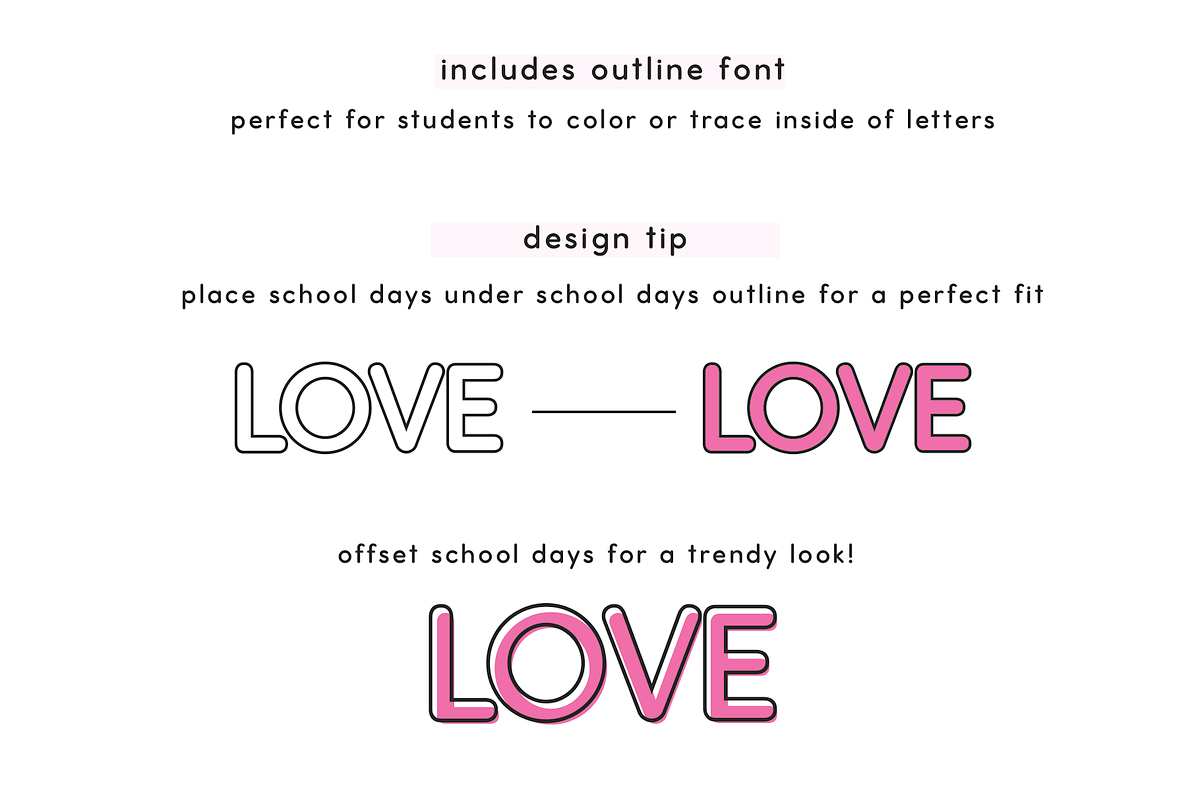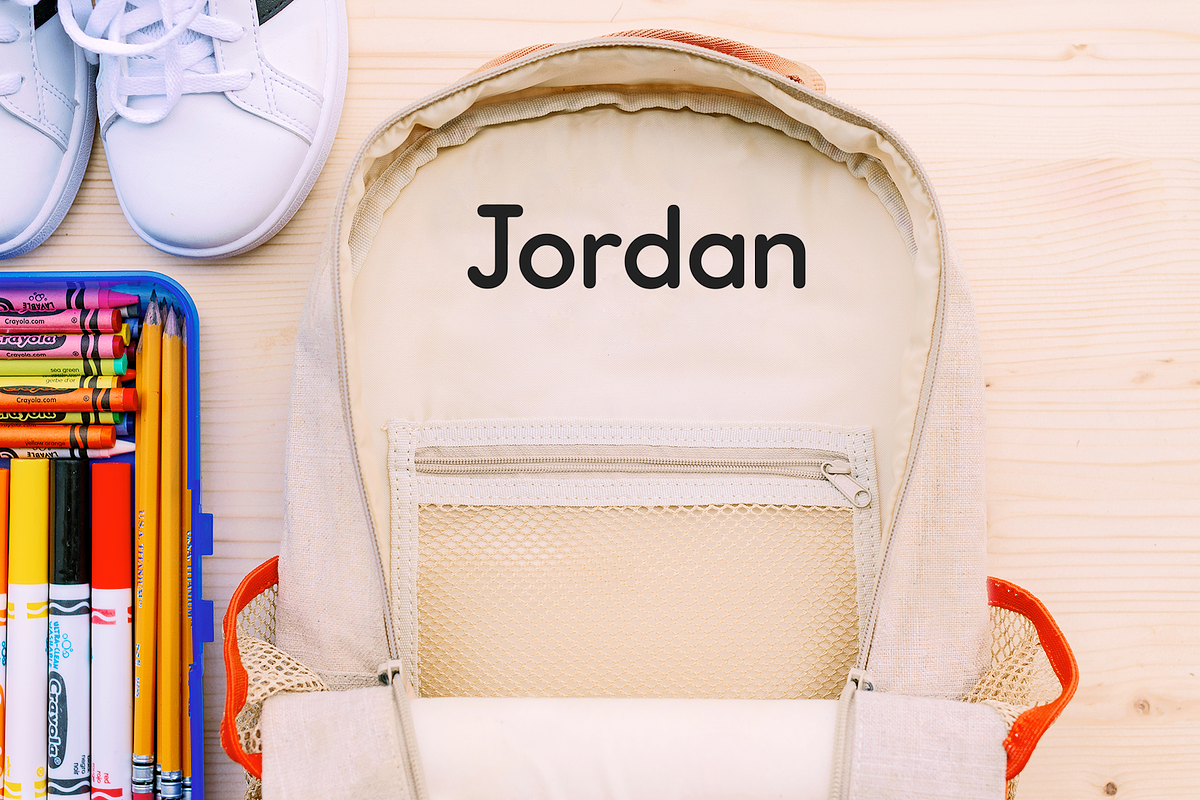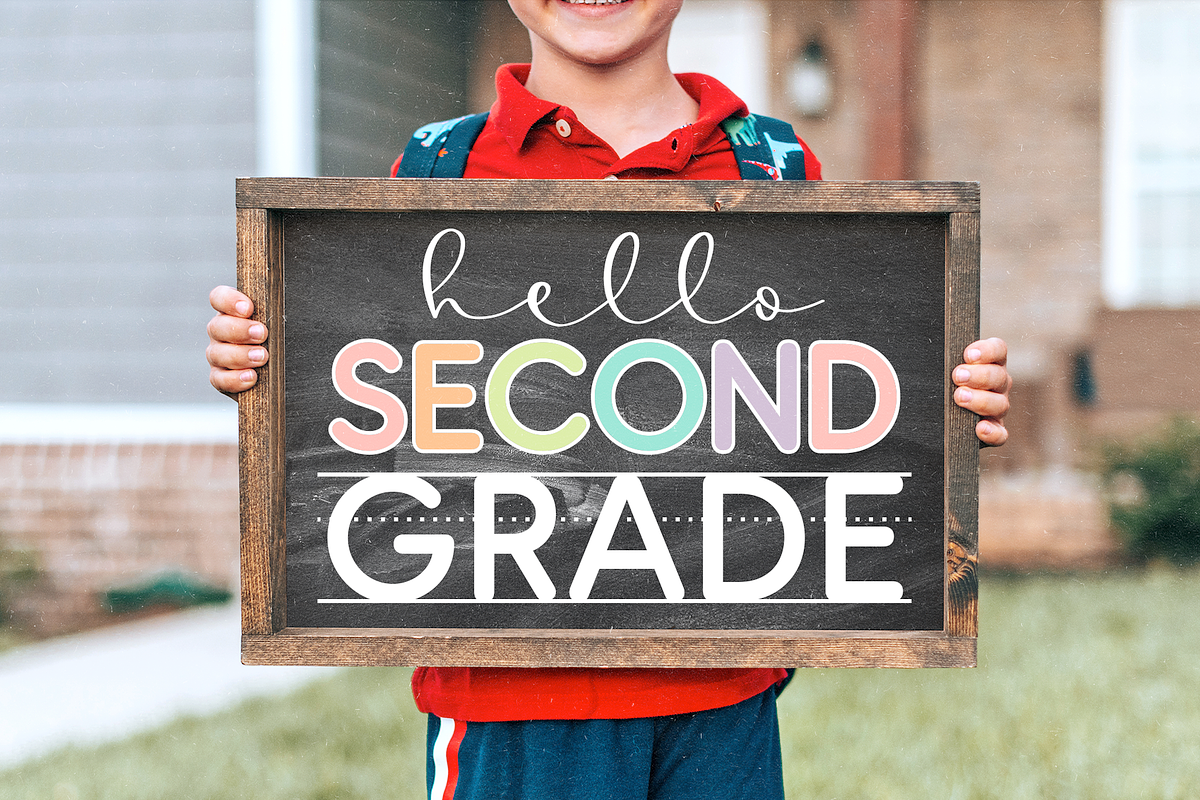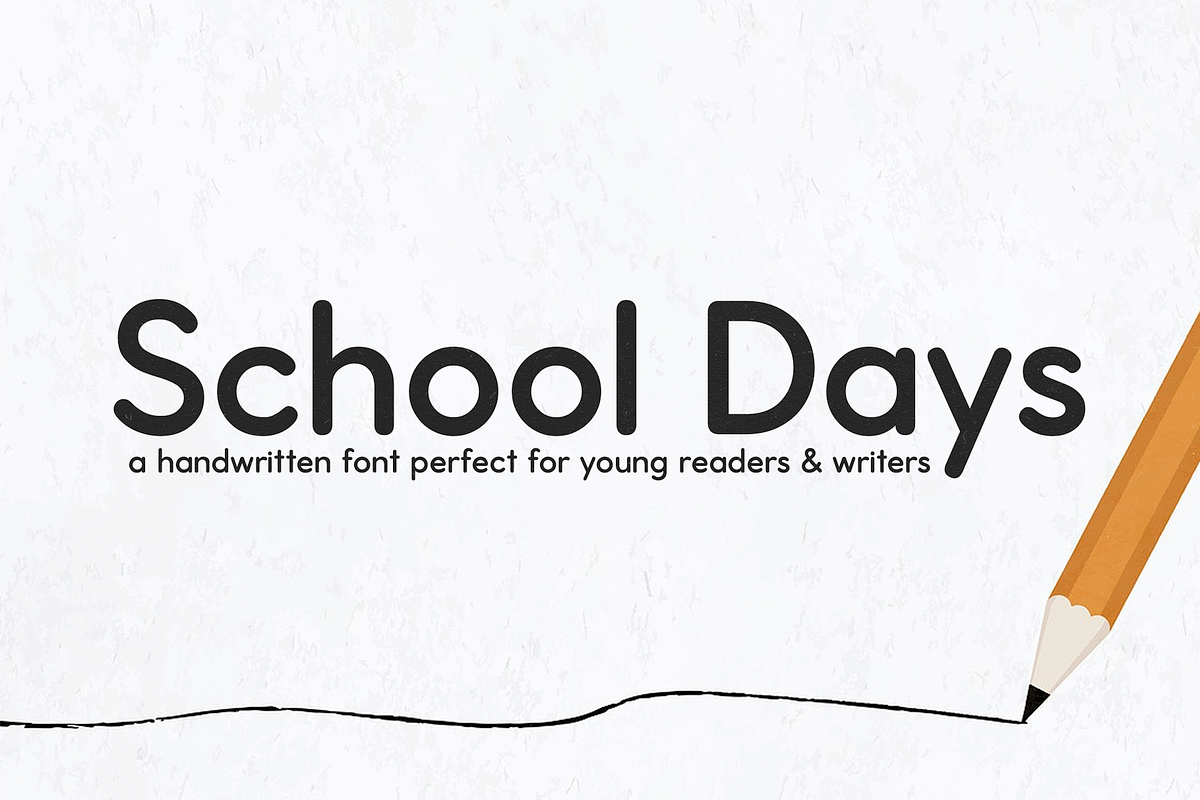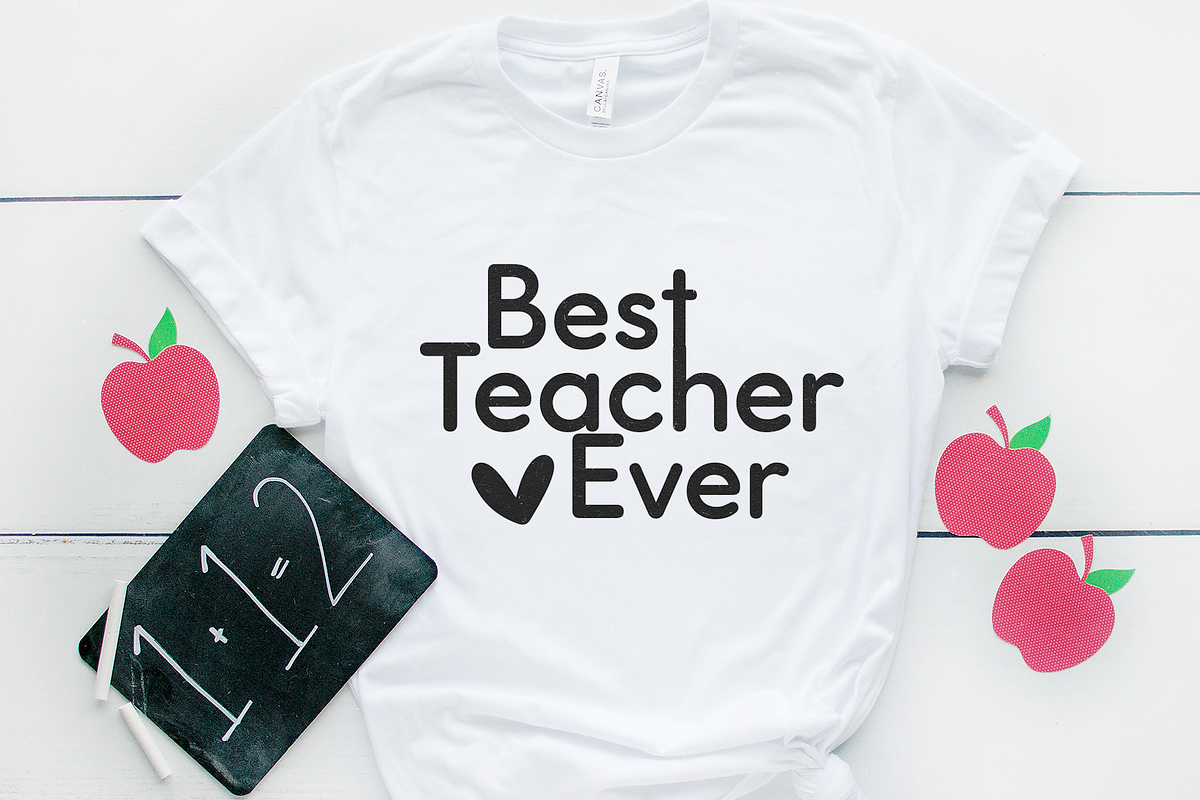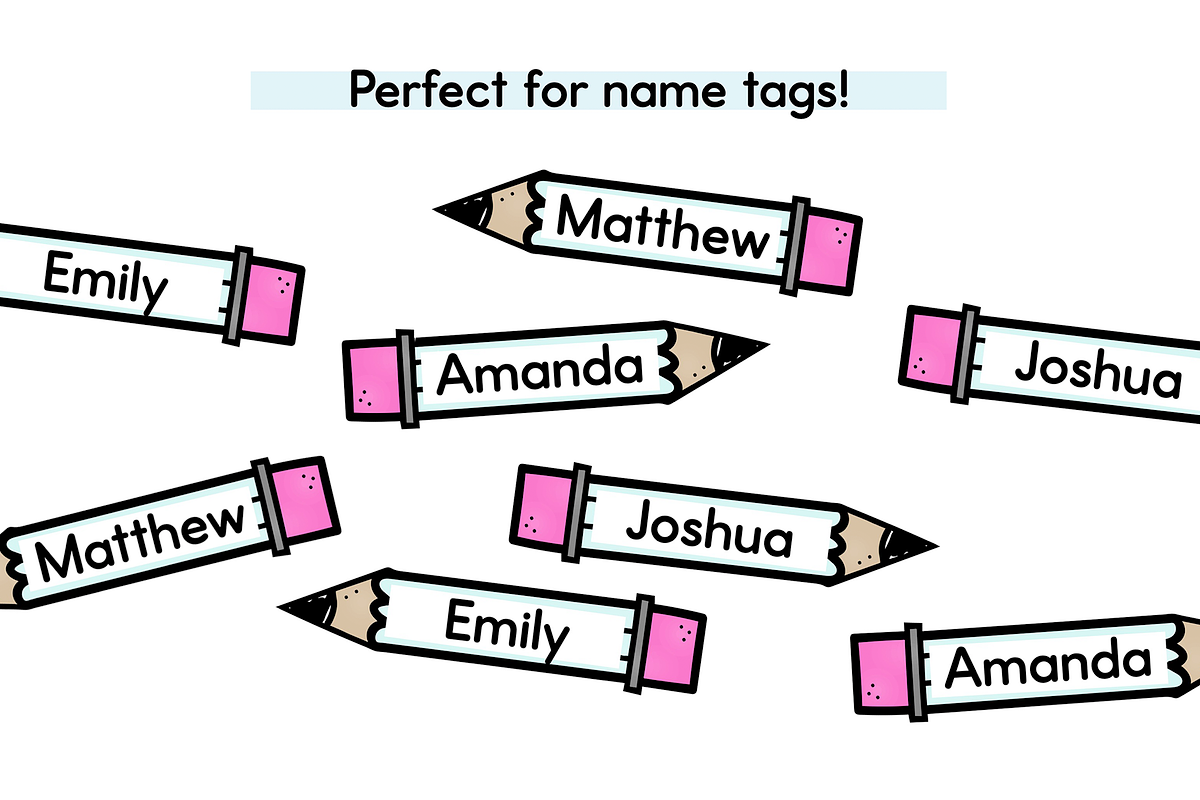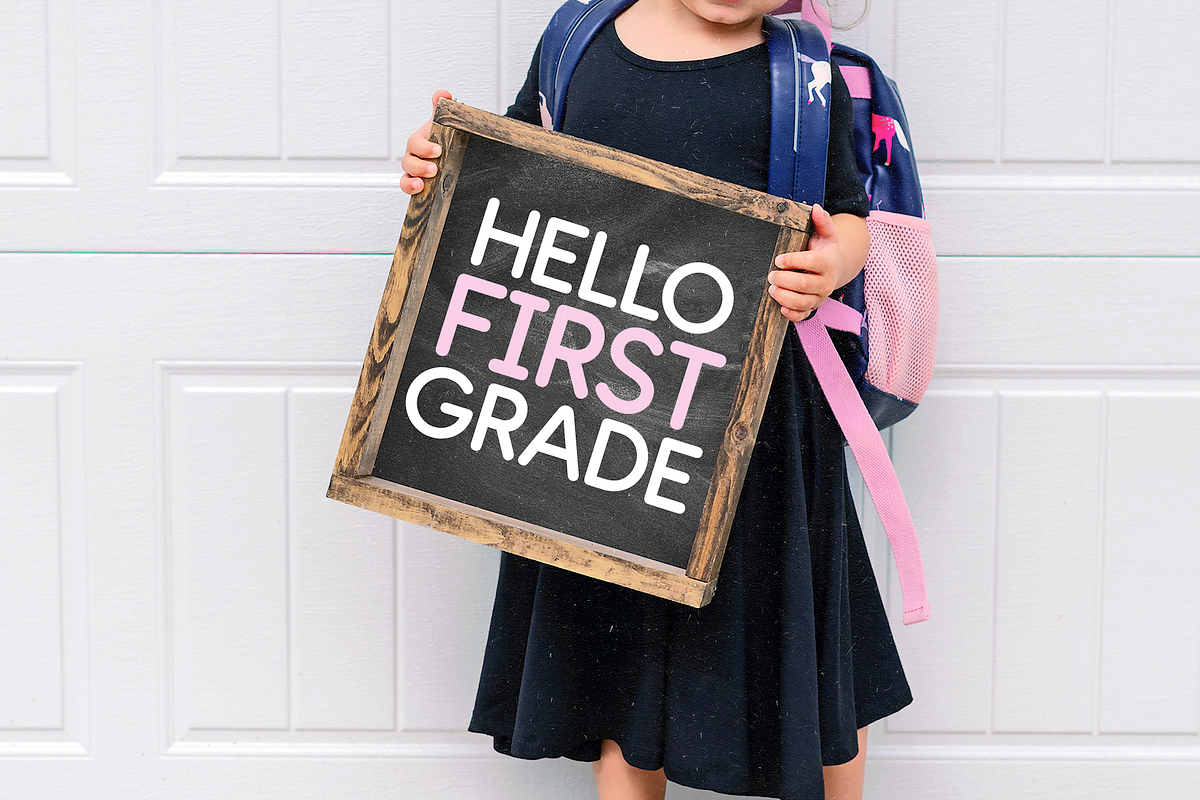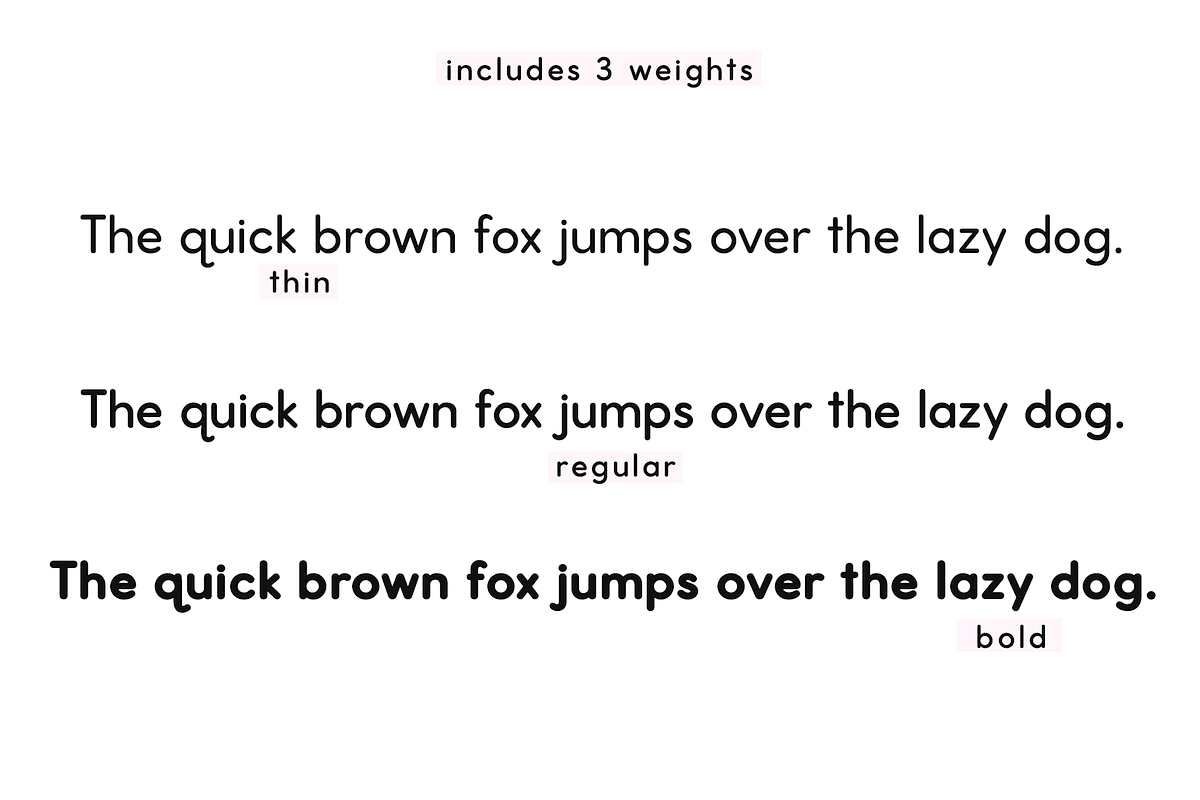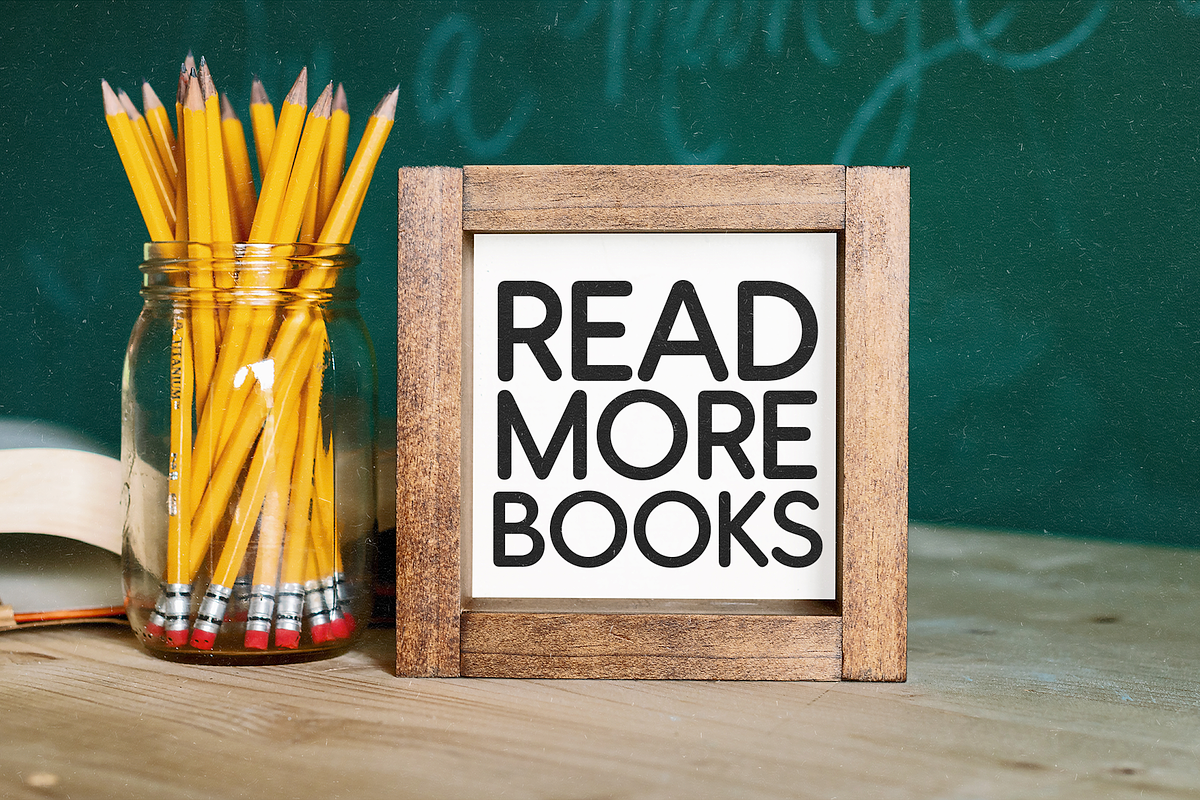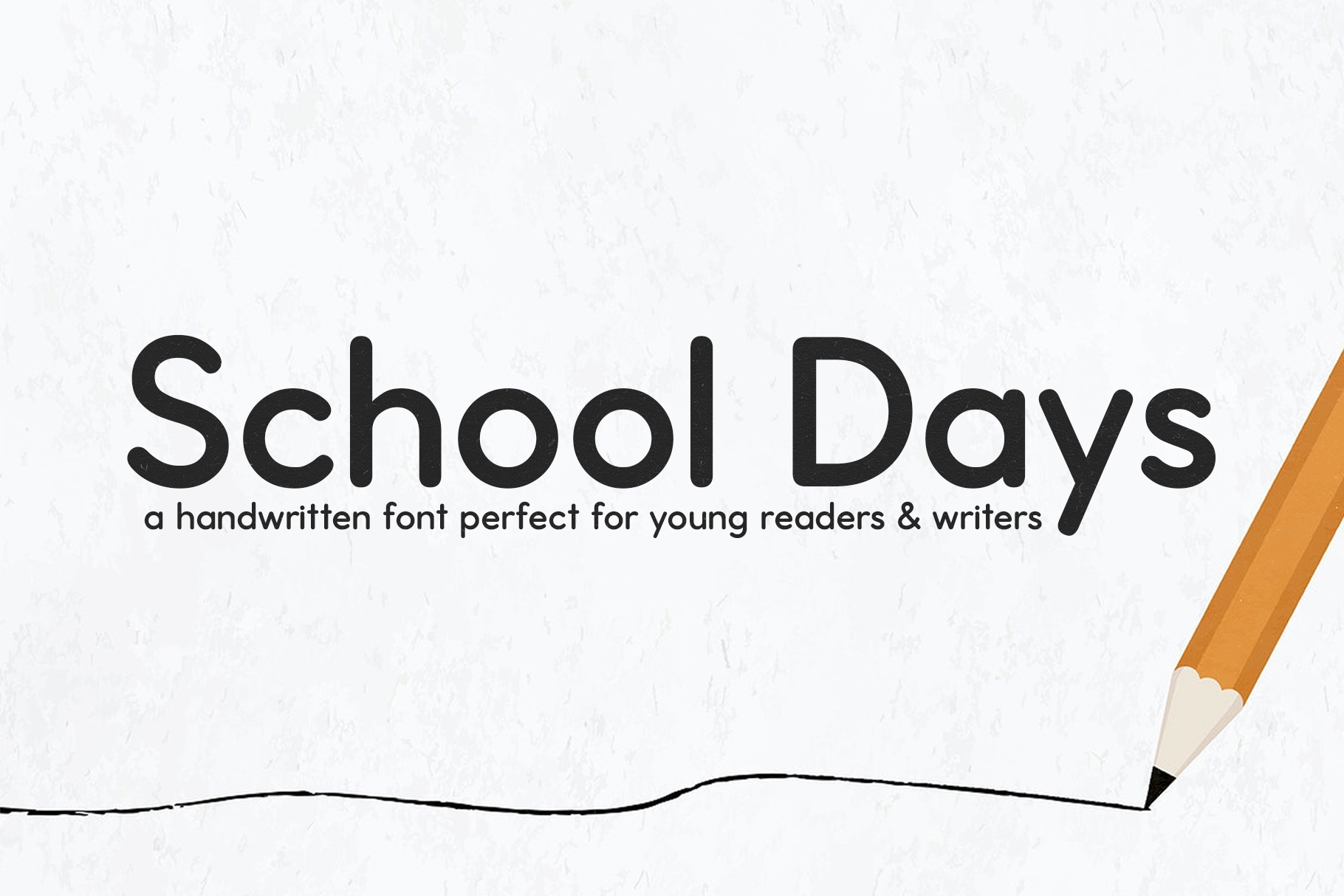
School Days Font
School Days is a neatly printed font perfect for teachers, creating worksheets, reading passages, students, cricut projects, handwriting practice and more!
This font comes in 3 weights - thin, regular and bold
*also includes an outline version!